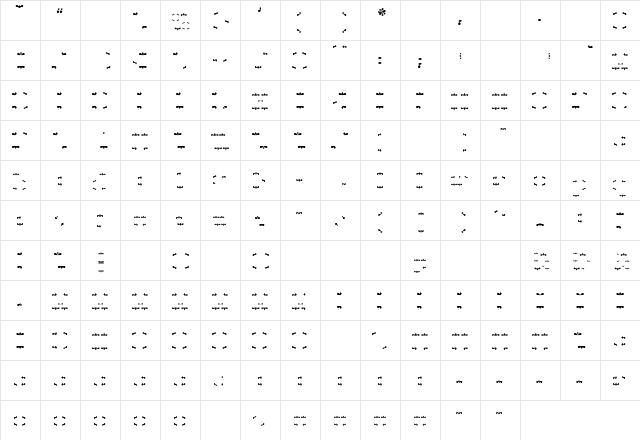
Rio Mesa Fill Serifs Regular
Design Context for Rio Mesa Fill Serifs Typeface
Rio Mesa Fill Serifs carries the refined structure of traditional serif typography, with bracketed terminals and considered proportions that communicate credibility and craft.